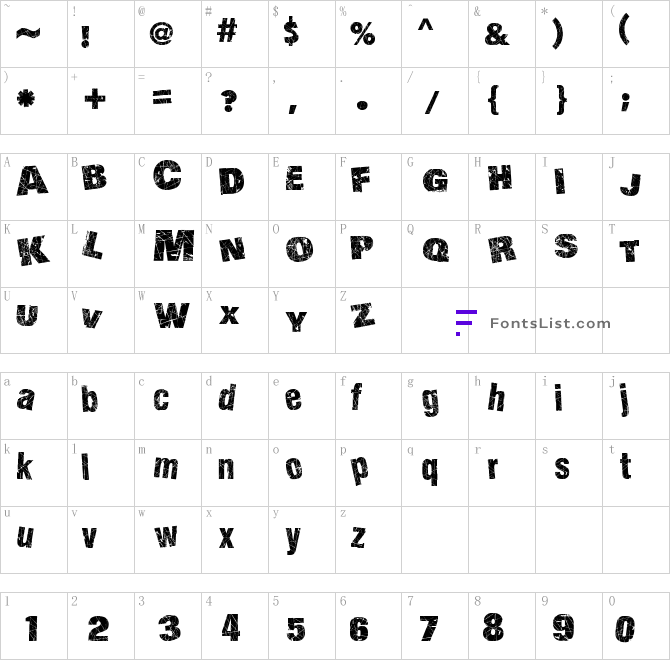
- Font Name:Action of the Time U L
Action-of-the-Time-U-L.ttf is a very beautiful artistic font, Action-of-the-Time-U-L.ttf is widely used in the design and printing of various books and pictures,Action-of-the-Time-U-L.ttf has a strong visual impact,Action-of-the-Time-U-L.ttf is a commonly used font in newspapers, magazines and books, and is used in posters, e-commerce Poster design, store design, logo design, font design and other fields.Action-of-the-Time-U-L.